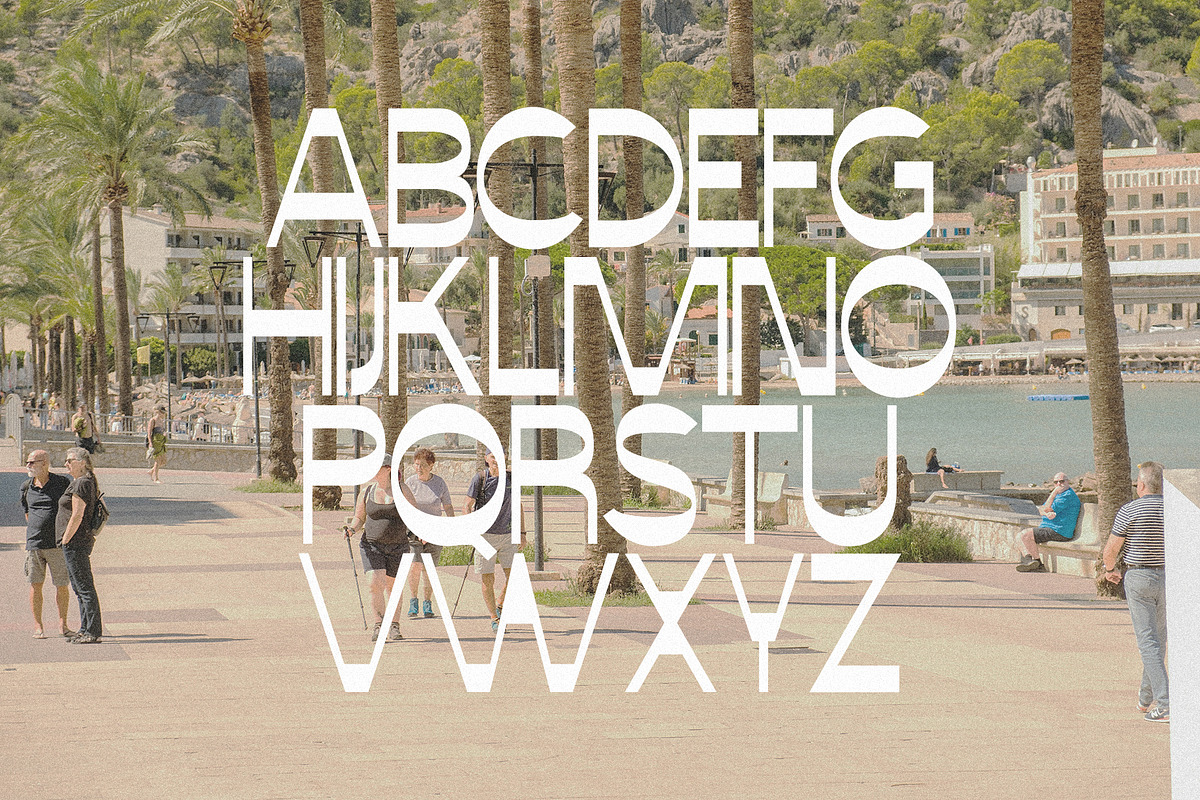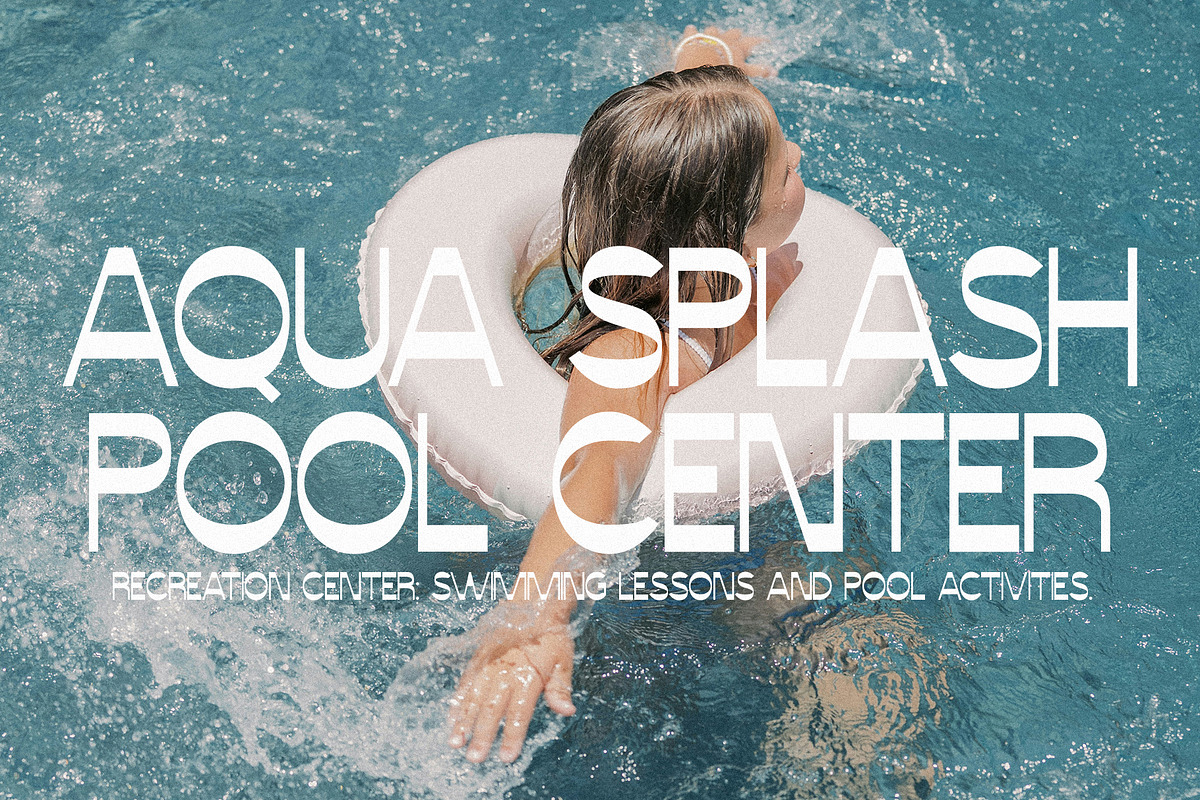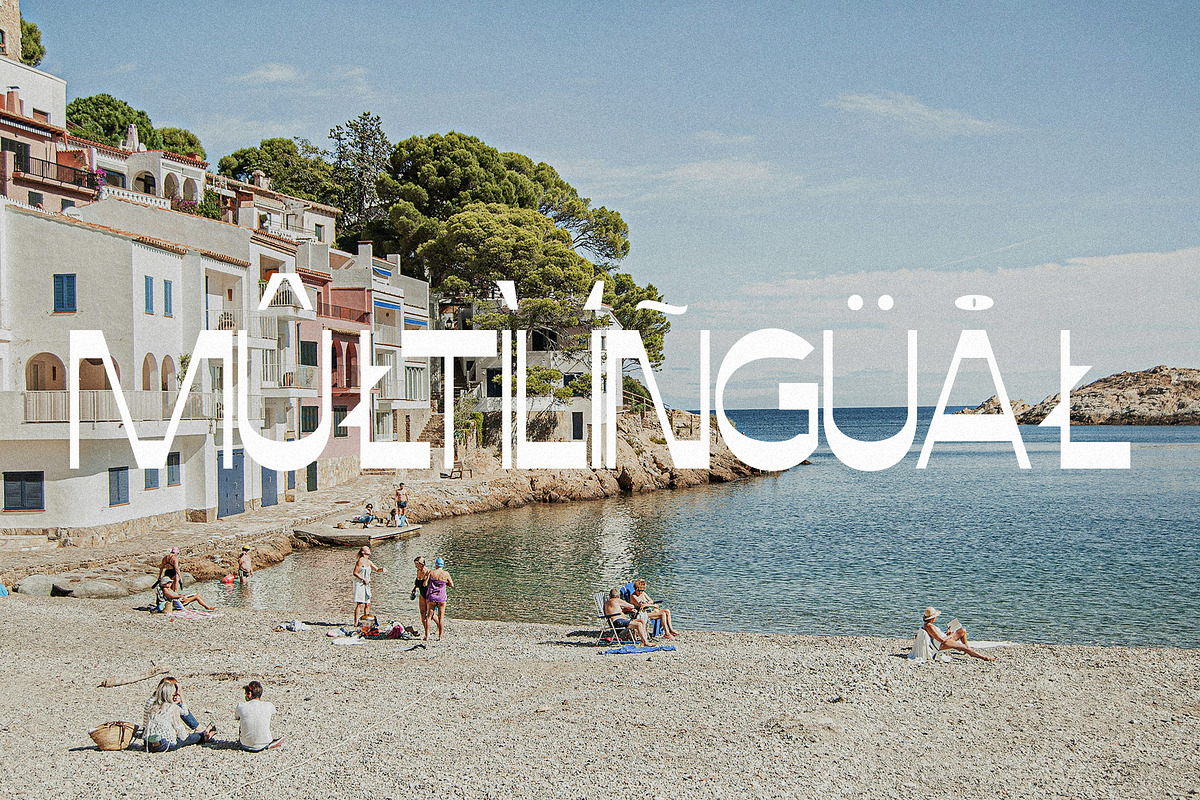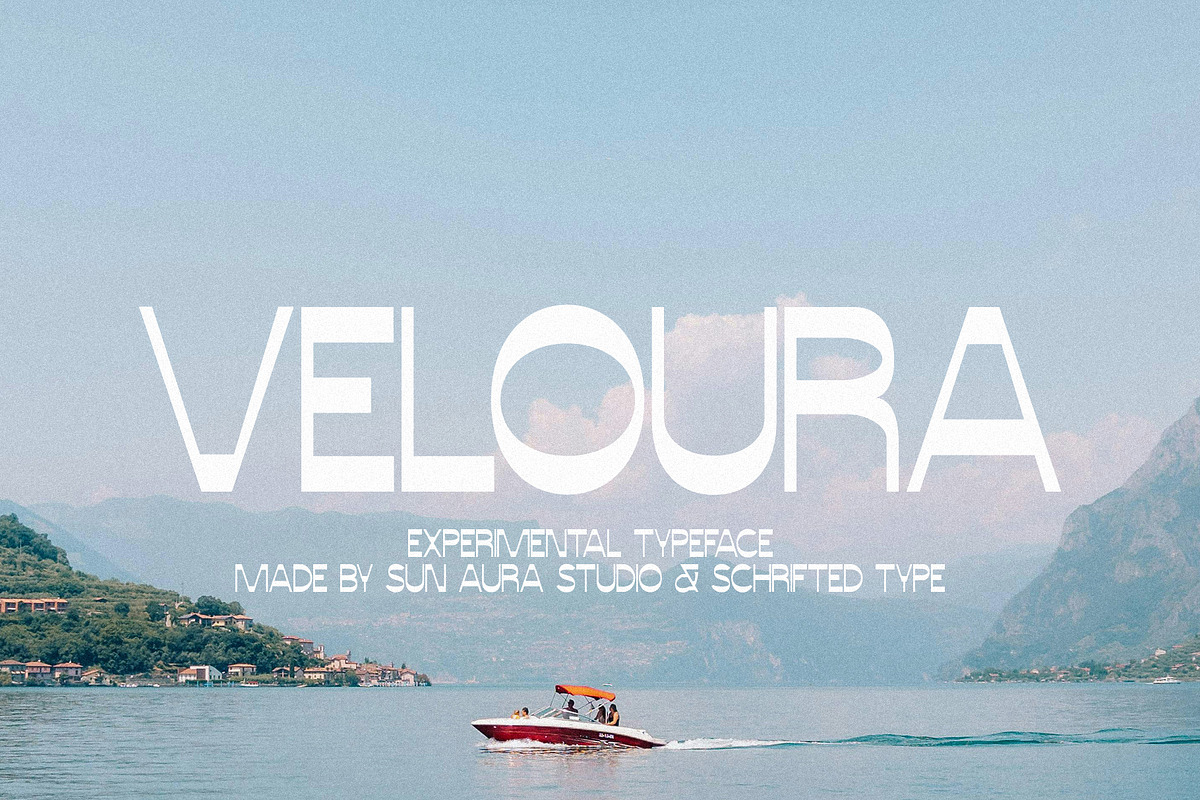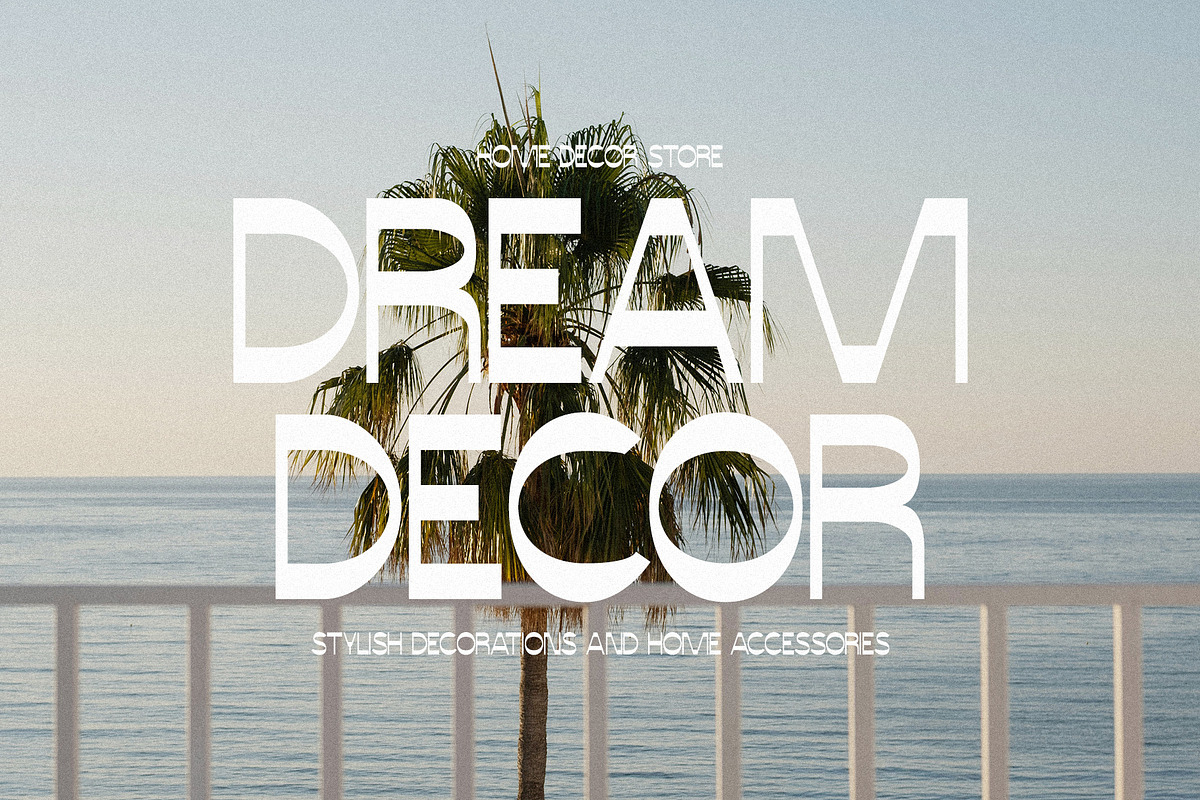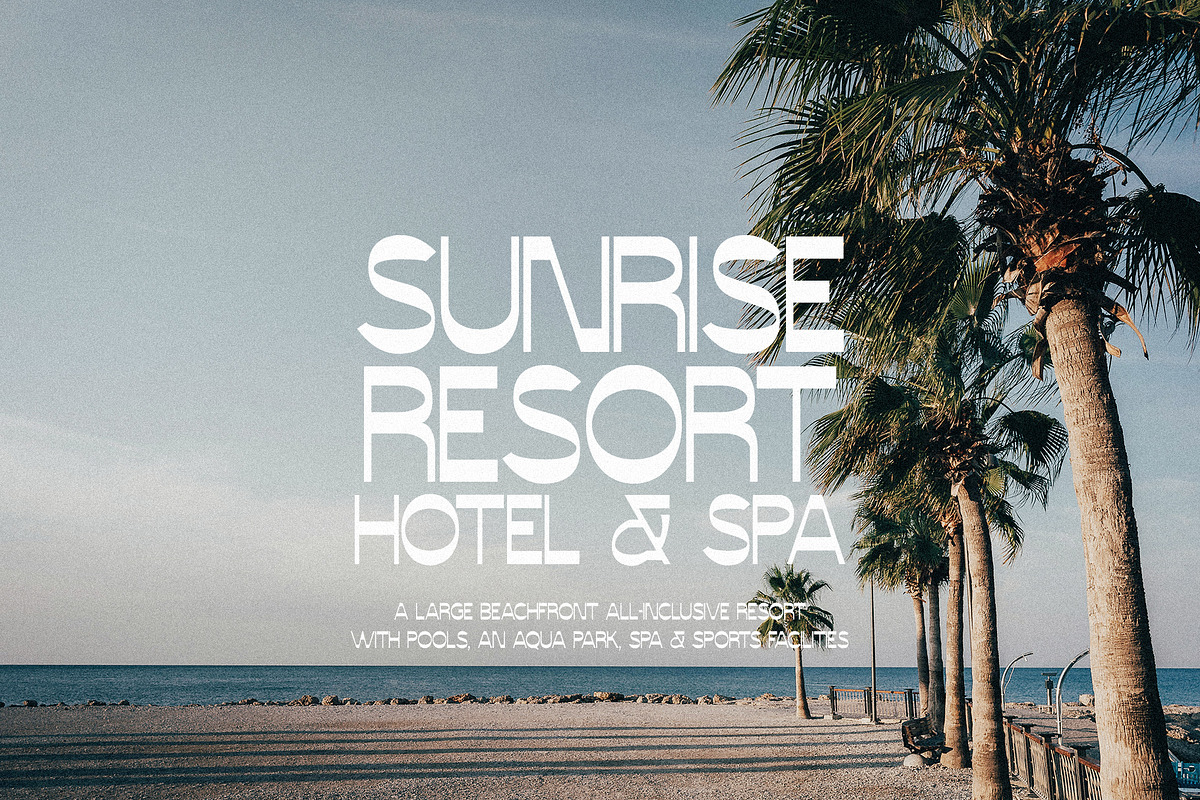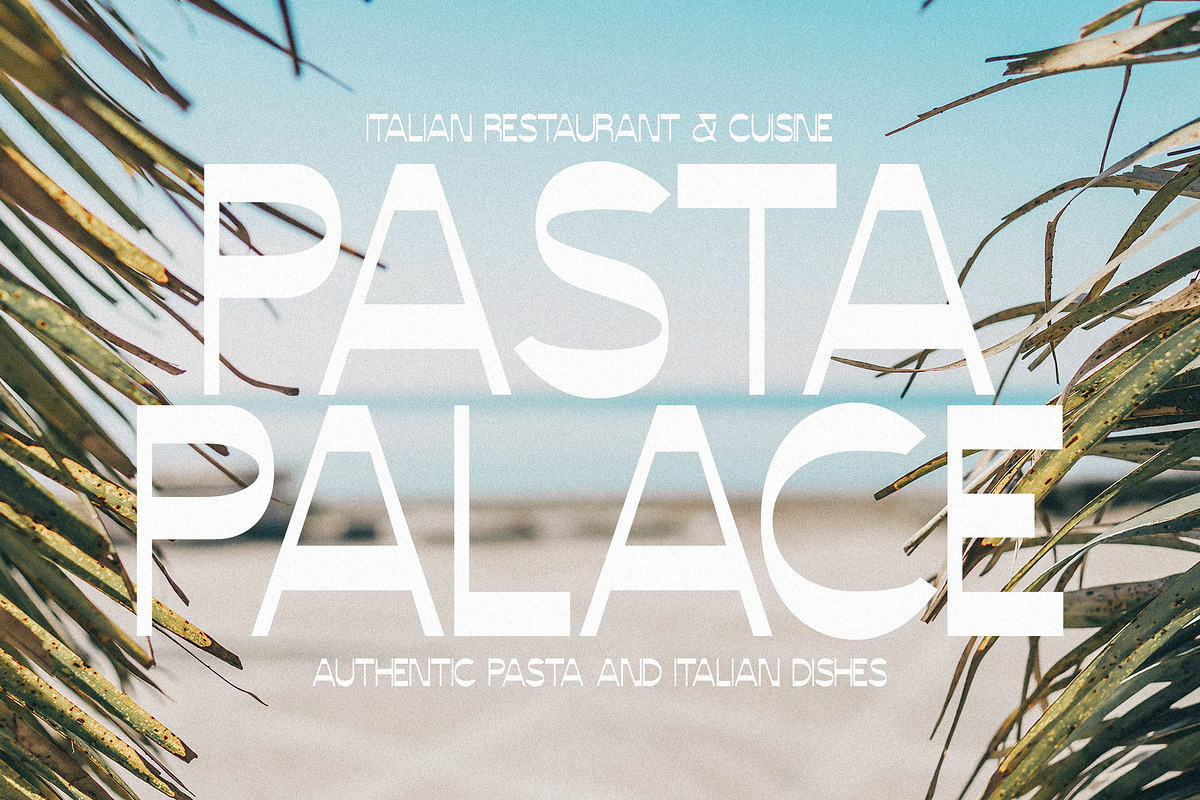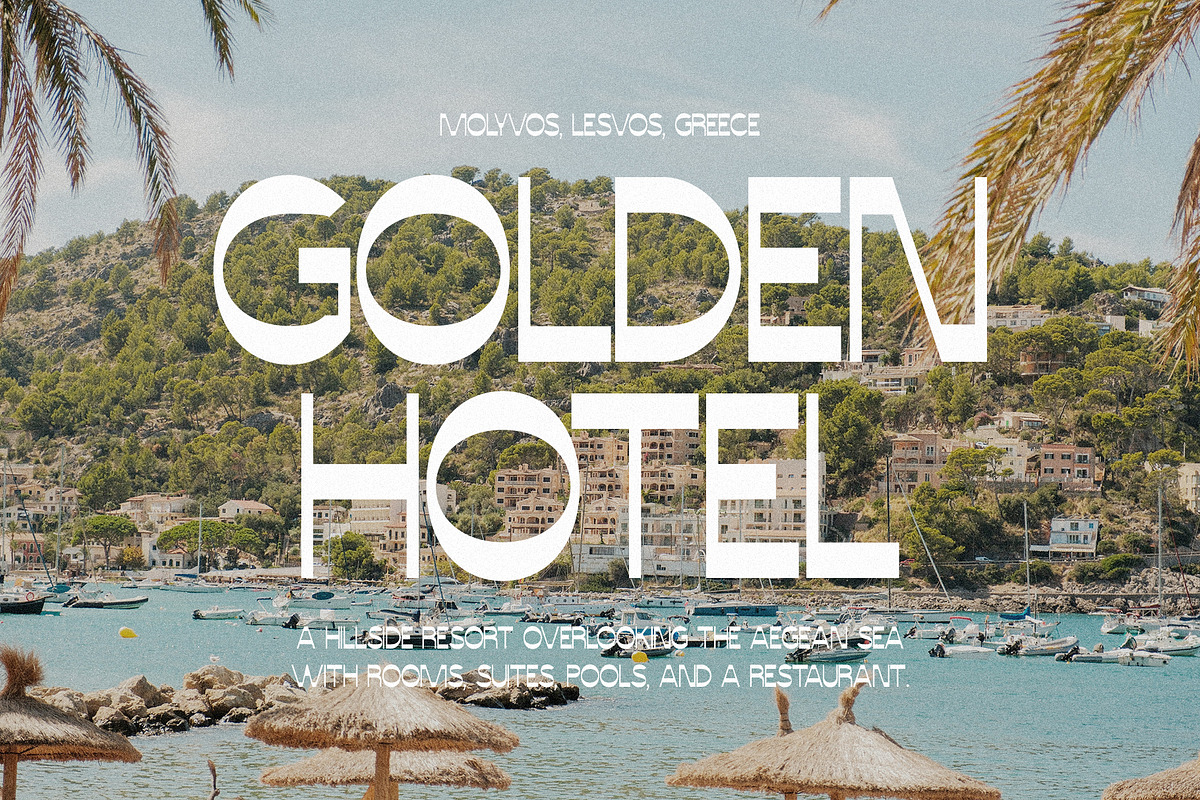
Veloura - Experimental Sans Serif
Veloura is an experimental sans serif that captures the sun-baked nostalgia of classic western typography and reinterprets it through a sleek, modern lens. Blending dramatic contrast, unexpected curves, and a touch of dusty desert charm, it strips away traditional slab serifs to create a bold, high-impact display font. Designed specifically for sun-drenched headlines, editorial layouts, retro-inspired branding, and standout packaging, Veloura brings warm summer heat and effortless coolness to any modern creative project.